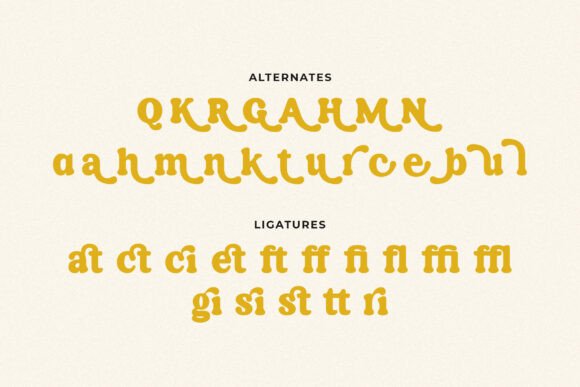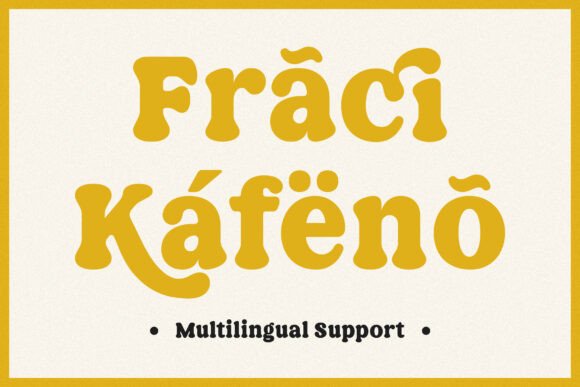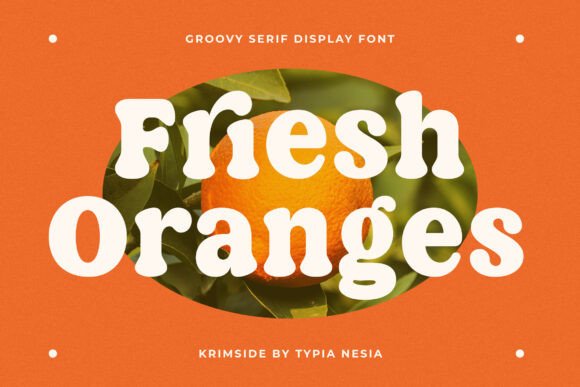
Introduction to Krimside Font
Krimside is a Groovy Serif Font that combines retro charm with modern design.
Its playful curves and bold presence bring a fun and unique personality to your projects, Such as branding, poster design, album covers, retro-inspired projects, social media graphics, packaging, invitations, kid stationary, game design and any design needing a funky, standout style .
Key Features of Krimside Font
Why Choose Krimside Font?